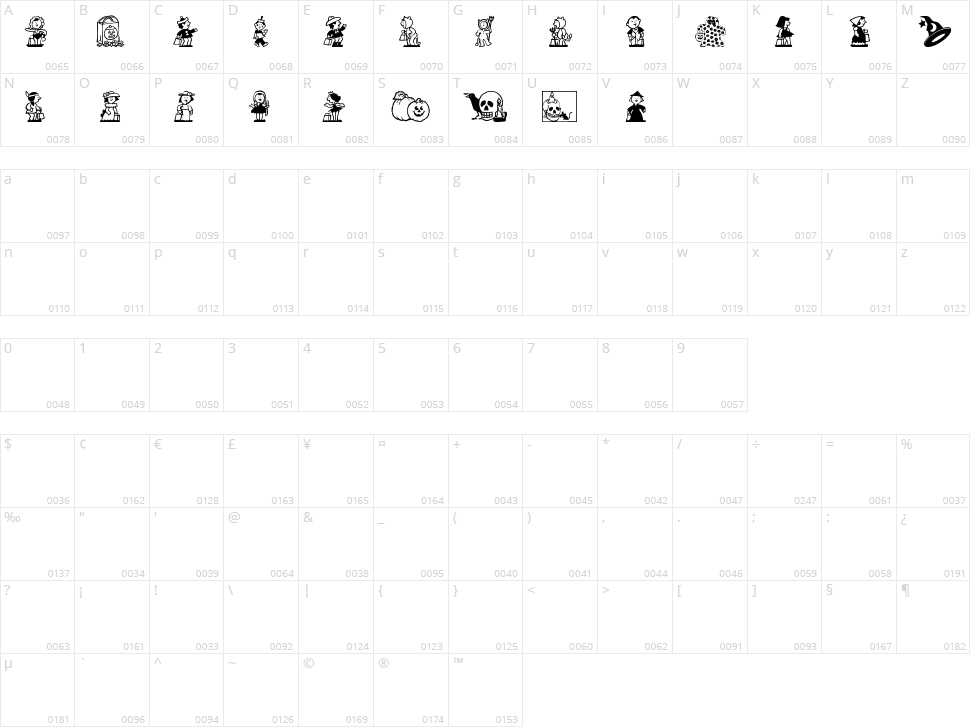
Tricks and Treats
These were created for my own personal use in scrapbooking
and letter writing. I shared a few with friends and
eventually with font groups. I have made them available